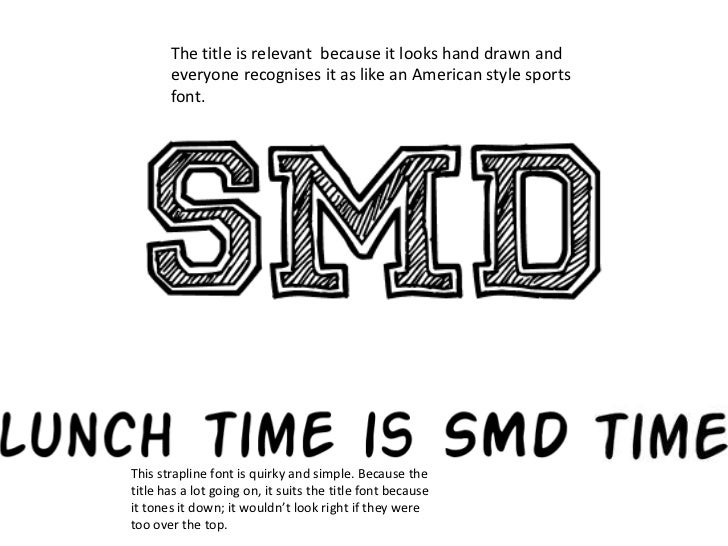
Hand Drawn Fonts For Titles
This chaotic (in a good way!) handdrawn typeface will bring sophistication to stylish projects including greeting card, poster, studio, and poster design Sweet Pineapple is a simple, vintage, handdrawn serif font from Medialoot It is ideal for titles and headlines of projects that need the added “umph” of a sweet, retro vibe.
Hand drawn fonts for titles. Handwriting fonts are good for logos, headers, titles, notes but not for regular text Hasty Tasty created by David Kerkhoff is a typical font in handwriting style As its name suggests, Hasty Tasty looks like a hastily penned down recipe, a quickly jotted down note The font comes in full range of accents so you can use in a multilingual project. A hand drawn font ideal for headlines and titles Great language support and includes 2 weights (preview was created with Bold) Language support Latin, Latin Extended, Hebrew, Vietnamese;. Aug 2, 18 Explore Guna Kathir's board "Lettering Styles Alphabet", followed by 1141 people on See more ideas about lettering, lettering styles, lettering fonts.
Rustelyn is a creative handdrawn script font you can use to craft titles, headings, and even logos for creative design projects It also comes in regular and slant styles as well Kingsland – Free Simple Handwritten Font. 8 different hand lettering fonts you can add to your bullet journal or style up you note taking!I also make bullet journaling videos!August https//youtube. Hippy Hand Drawn Font HIPPY is Hand drawn brush serif font with a friendly shapes hope you can get unique feeling to create your great design HIPPY was inspired from manual handdrawn brush to make a natural shape could help to uses for Labeling, Logo, Clothing, Movie title, Comic title, gigs, or cover album.
Making the web more beautiful, fast, and open through great typography. Styles 2 weights (Regular, Bold) Download Amatica SC Spinoff of the Amatic SC font family, with wider letterspacing (optimized for Hebrew). Created by Apostrophic Labs, Lilly has a versatility for smaller body text or titles, making it a good allrounder for children’s design Download Lilly at FontSquirrel here 11 Short Stack Designed by Sorkin Type Co, Short Stack is a naivelydrawn handwritten font with childlike, rounded letterforms Generously spaced between letters.
On this occasion, we want to present about Cool Letter Fonts to Draw Today, we get it from expert graphic designer, then we group them in font category We can see these bubble letter cursive fonts alphabet, cool font alphabet lowercase letters and draw cool letter fonts, it can give ideas to create our own creation. Give your video project a slick professional edge with these easytouse FREE cinematic title presets for Premiere Pro The title editor in Premiere Pro is notorious for its lack of usability and overall bad design Virtually every editor that has ever used Premiere has had the opportunity to browse the atrocious library of default text styles. Fonts play a big role in creating classroom worksheets, activities and many teachers love making their own!.
Mona Handdrawn Font is a hand drawn brush uppercase font It has contrasting thin and bold lines It’s great for creating identities, logos, posters and packaging design Uppercase letters, numbers, symbols included Check out other fonts by Evita Vilaka Here Files included. Sophia – Free Handlettered Brush Script Font Many free handdrawn fonts come with cool bonuses to add more style to your work Check out the stunning Sophia brush script, for instance It features a sweet handlettered font which allows you to create your own decorated word with fun ornaments Customize your typography for posters, invites. 21 Best Fonts for Hand Drawn Style Web Design Henry Jones June 29, 09 28 Comments 0 613 By now you have probably noticed a lot of “hand drawn” style web designs.
Introducing Karltown Handdrawn Font Karltown is a handdrawn font that we made with excellent taste We combine ethnic and cultural elements in each of the glyphs This font is suitable for those of you who like traditional arts and culture, besides this font is also suitable for those of you who have a shoe, fabric, clothing, fashion, and also jeans business. The handdrawn brush font features irregular bouncy characters and the rough shapes Whether you wish to make your quote look pleasing to the eyes, design your greeting card, make your poster stand out, or give the wedding invitation the needed xfactor to look elegant, it can cater to your needs with aplomb. We have 3,984 free handwritten\ fonts to offer for direct downloading · 1001 Fonts is your favorite site for free fonts since 01.
Fonts Bubbles Fonts Commercial License A Growing Bundle Fonts this quirky font is a cute hand drawn font for titles and more This is a part of the Bubbles Fonts bundle. A perfect choice for projects where you need to create not only slick but stylish lettering, the handdrawn font makes a great choice for logos, merchandise, or even packaging Each lowercase character even comes with a separate “endswash” version so you can give a custom look and feel to the last letter in a word. The handdrawn brush font features irregular bouncy characters and the rough shapes Whether you wish to make your quote look pleasing to the eyes, design your greeting card, make your poster stand out, or give the wedding invitation the needed xfactor to look elegant, it can cater to your needs with aplomb.
Muray House is a Bold serif fonts with a solid looks, balanced, and also beautiful curves in an alternate charactersA style that we choose as a Natural looks of the HandDrawn made Muray House as a unique identity of this fonts Muray House also comes with alternative characters that carefully created for adding a minimalist decor of the letters and it looks right on every character's we've. Free Usama Light Hand Drawn Font For Crafts & Designs Free Usama Light Hand Drawn Font is Hand Lettered font infused with fun and shine This beautiful handwriting font is free for personal and commercial use and it will work great with serif and script fonts You can create a handmade personal touch in your designs easily using this free font. This font is drawn with a composition of leaves and flowers so that it forms like letters We do not provide lowercase and number versions, because these fonts are used for titles and logos By using this hand drawn font, you will get a classy and luxury design Files Included 1 FlolaBoldotf.